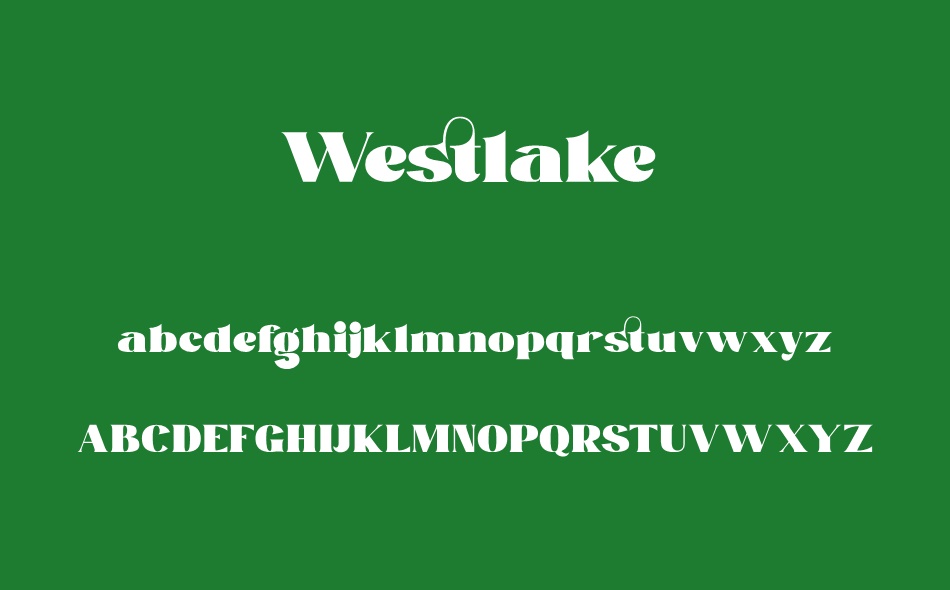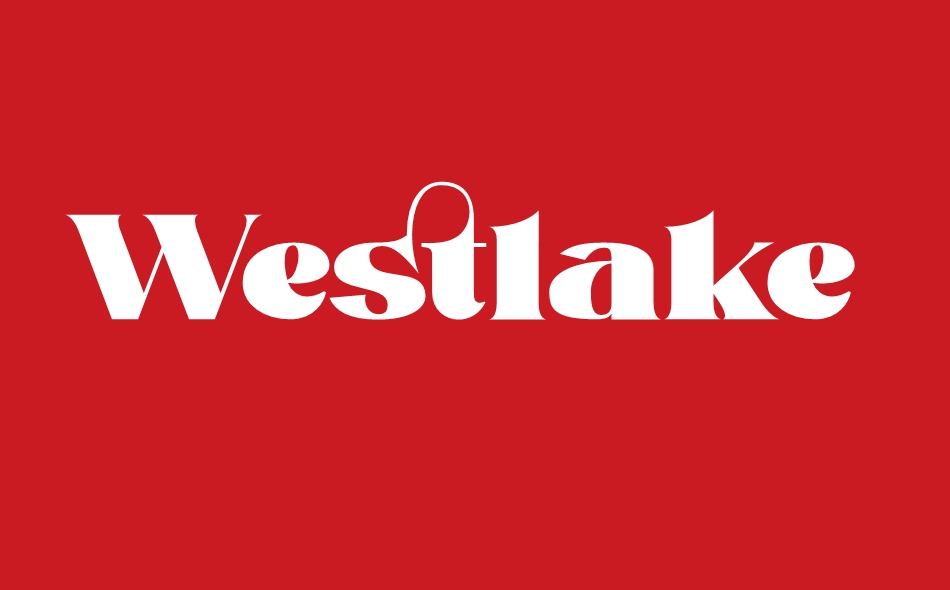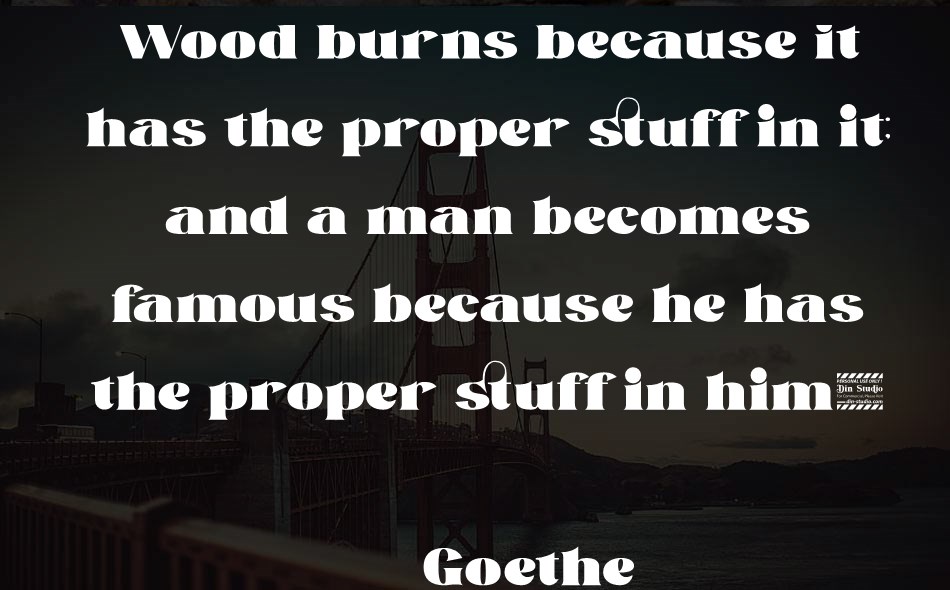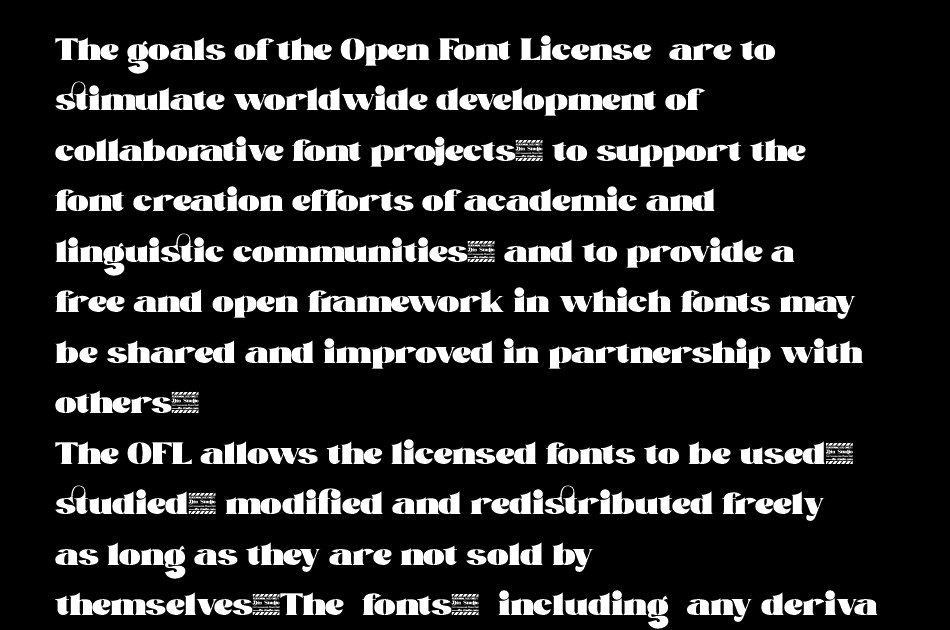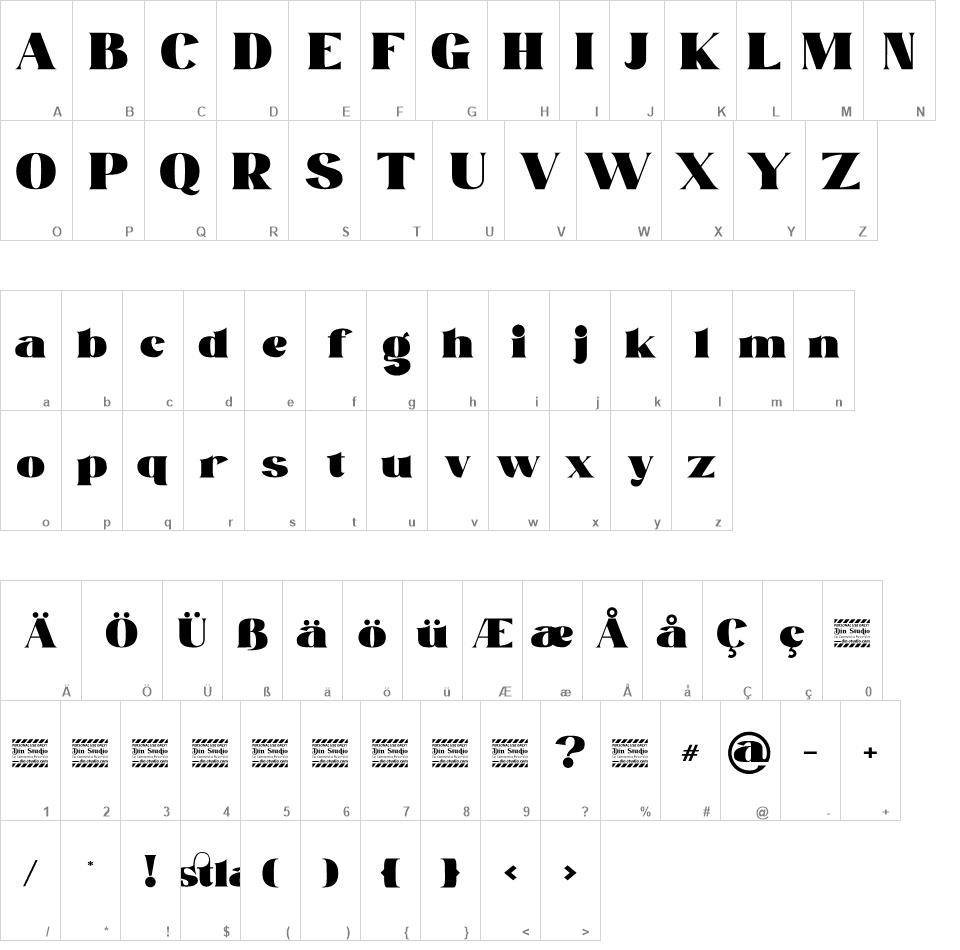
Westlake font
Westlake is a serif font. Made for any professional project branding. It is the best for logos, branding and quotes. Every letter has a unique and beautiful touch.
Westlake is a serif font. Made for any professional project branding. It is the best for logos, branding and
quotes. Every letter has a unique and beautiful touch.
Features:
• Standard Ligatures
• Swashes
• Stylistic Sets
• Multilingual Support